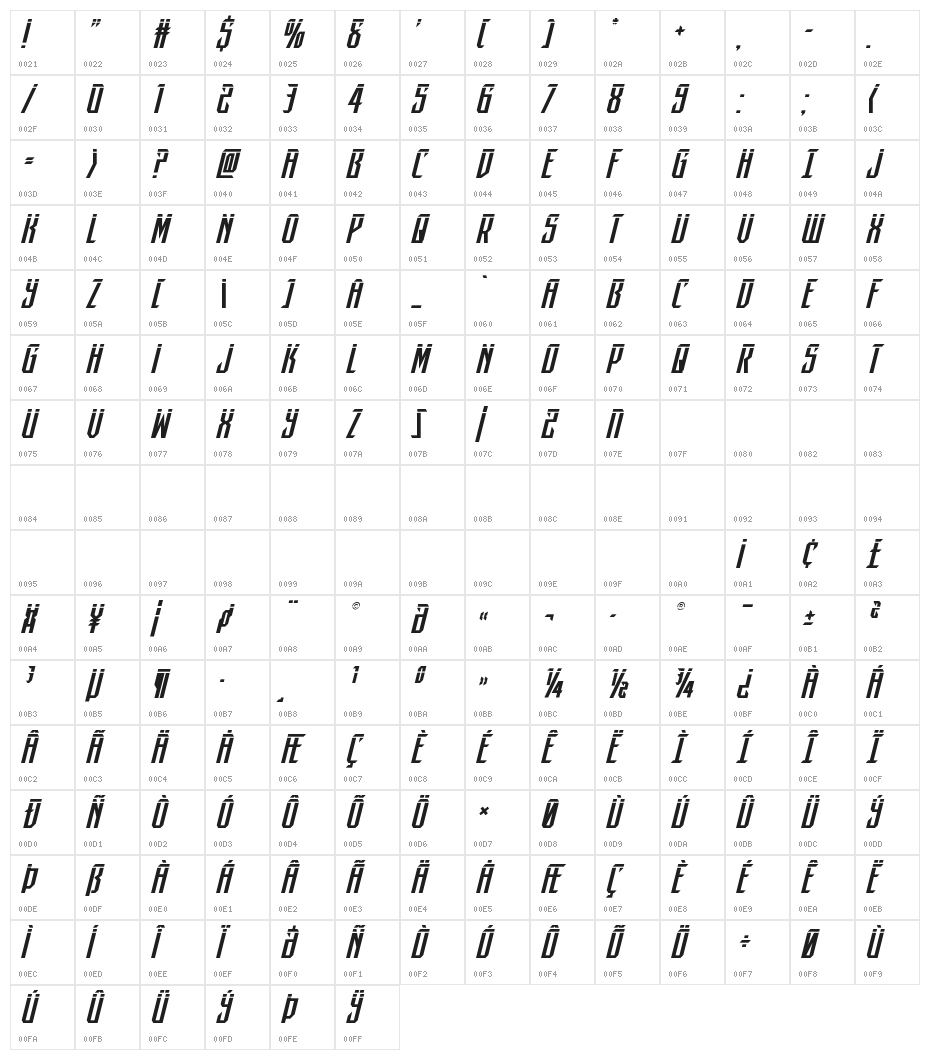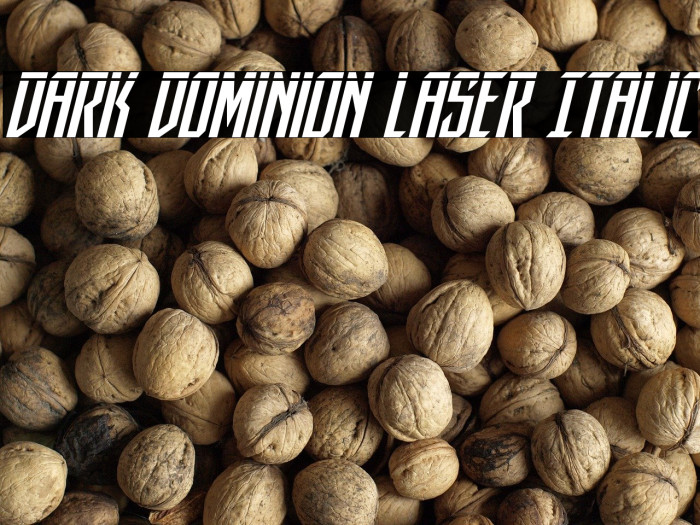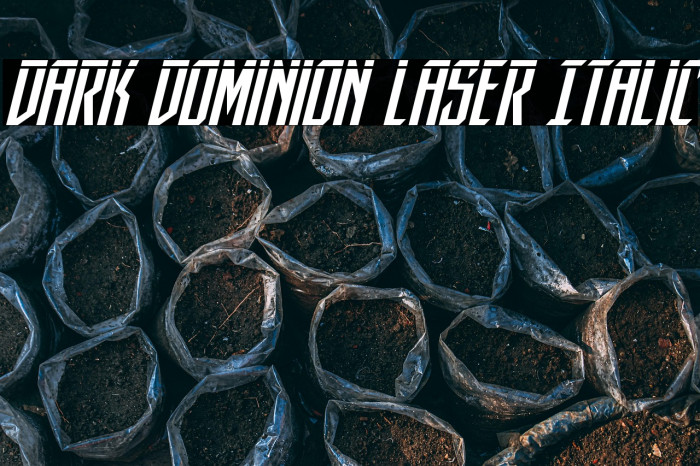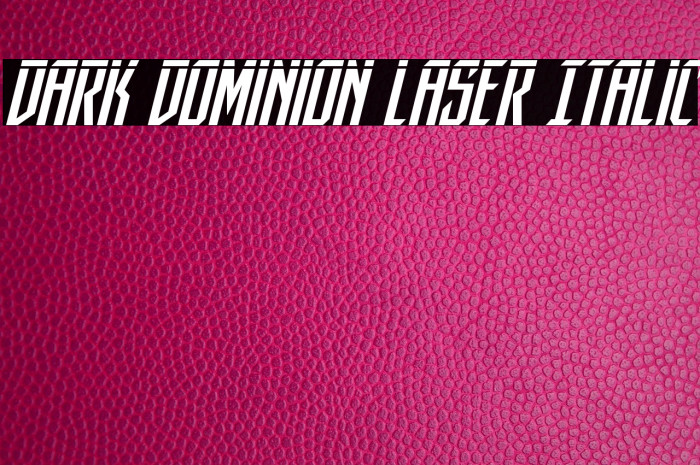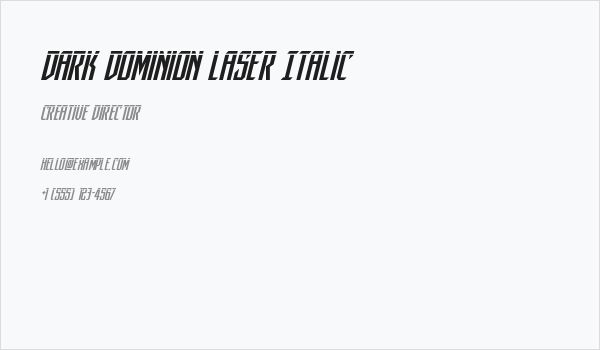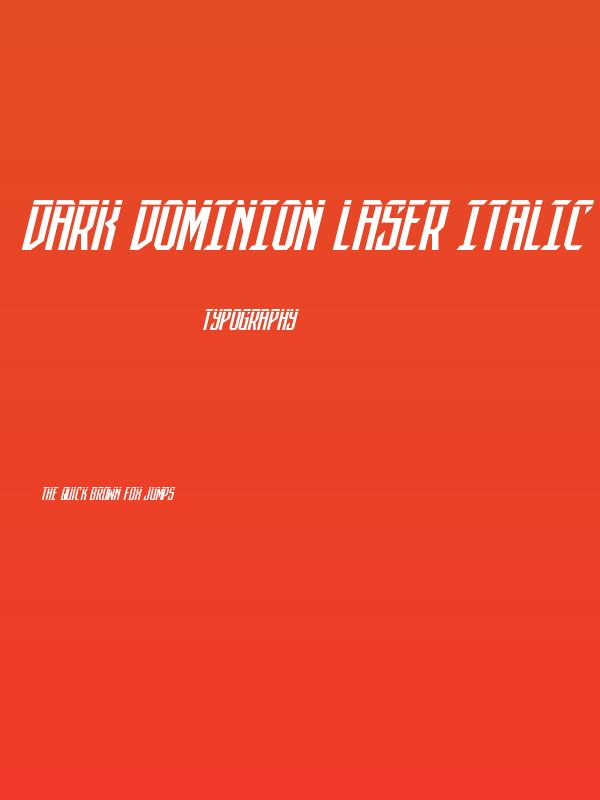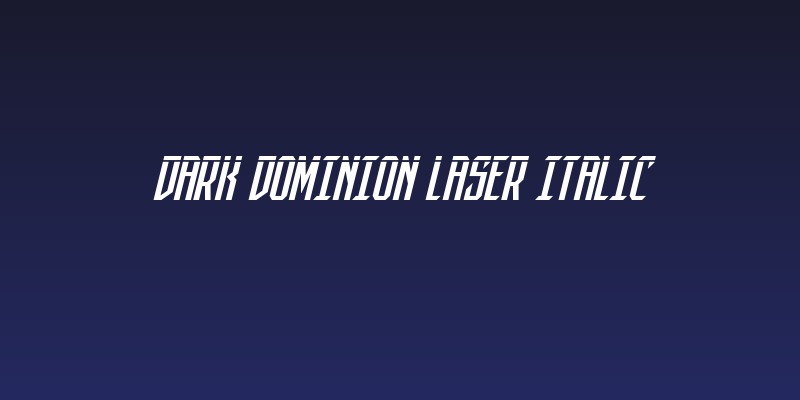
Dark Dominion Laser Italic Font
Dark Dominion Laser Italic Description
This font features a bold and dynamic design with a futuristic flair. The characters are sharply angled, giving them a sense of motion and speed. The italicized style enhances this effect, making it ideal for projects that require a modern and edgy look. The uppercase letters are particularly striking, with their elongated forms and sharp edges. The numbers and special characters maintain the same stylistic elements, ensuring consistency across all text. This font is perfect for creating impactful headlines, logos, and branding materials that need to stand out.
| Proposed Projects | Ideal for sci-fi themed projects, tech branding, video game titles, and dynamic posters. |